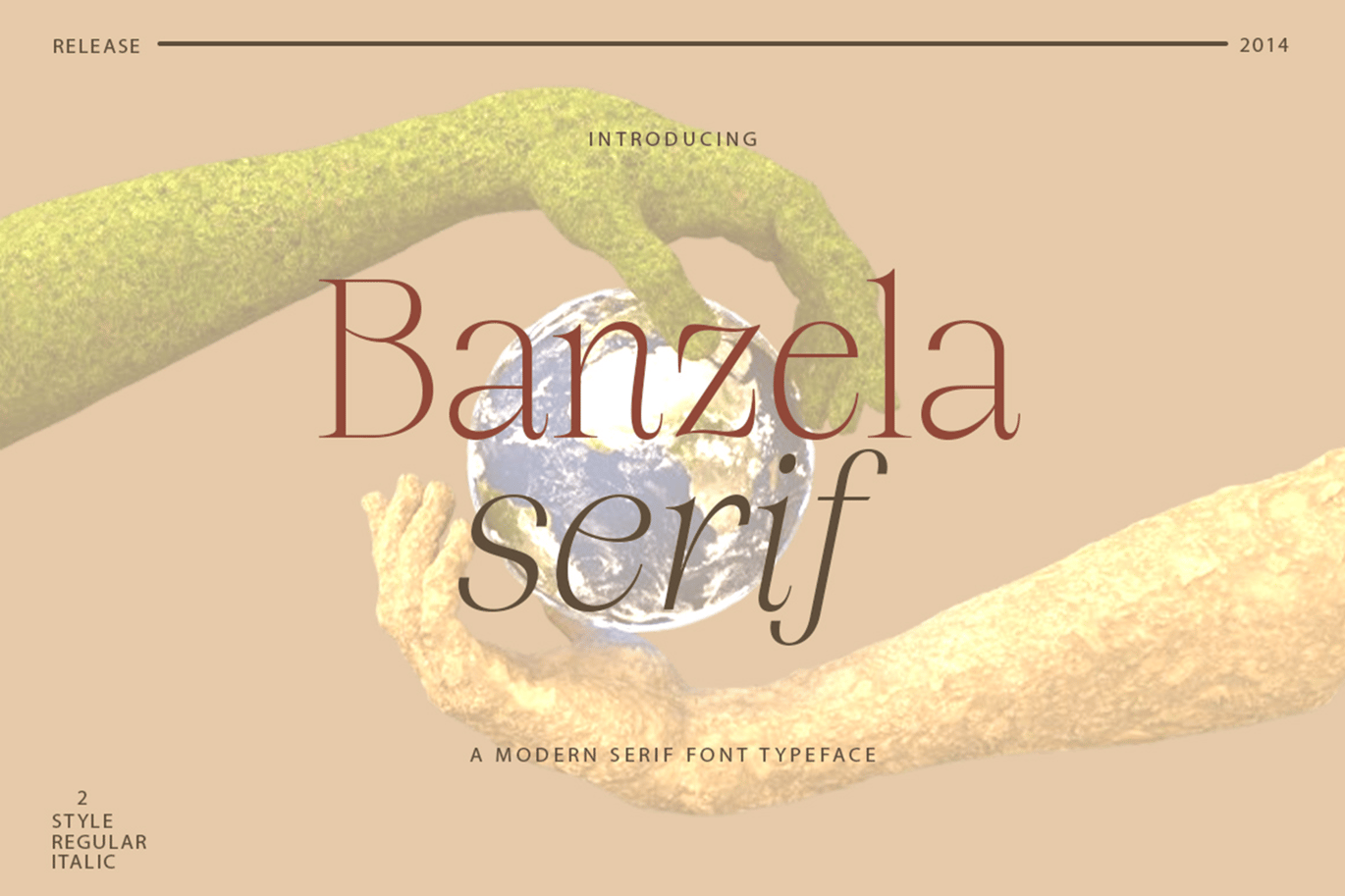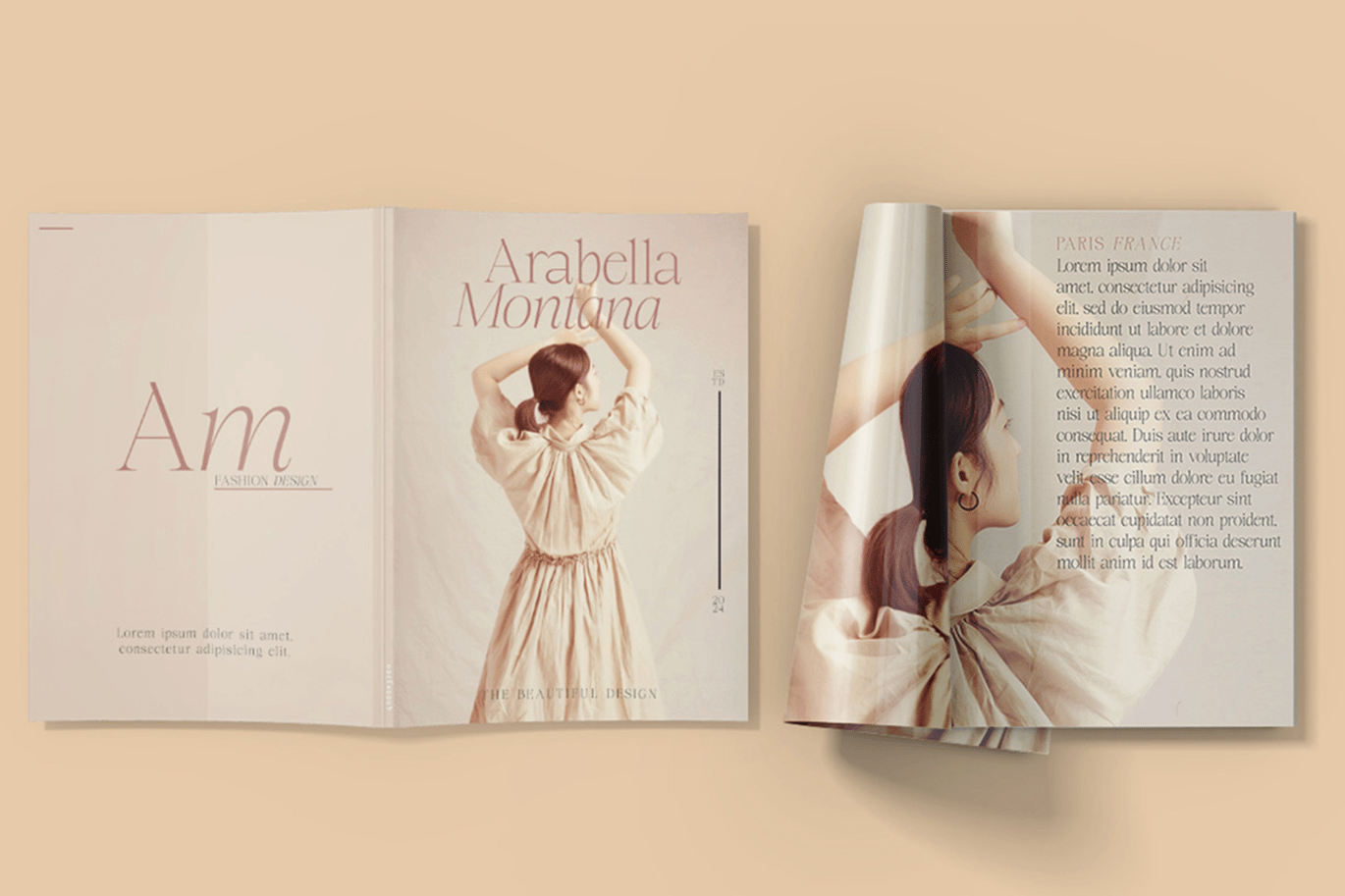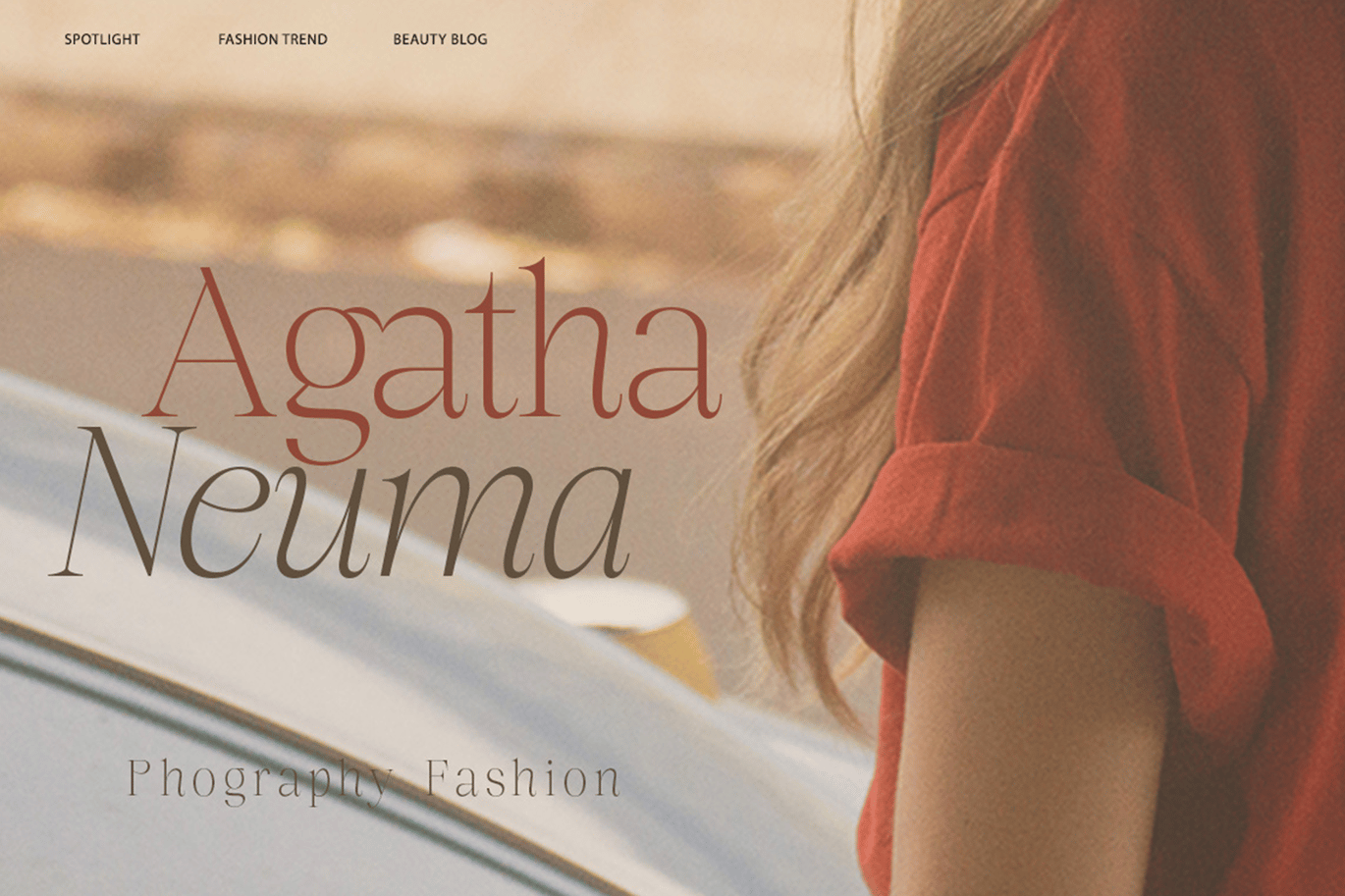
Banzela is a fine, airy serif from Propertype. Strokes are thin, serifs are small and sharp, and the italic flows almost like handwriting. The mockups put it on magazine spreads with names like Arabella Montana and Agatha Neuma, which is exactly the editorial world it was drawn for.
The free set covers the Regular and Italic. Propertype also sells a much larger family. Try mixing the two styles in one headline, the first word upright and the second in italic, as the specimen does.
Best uses for Banzela
- Fashion and beauty magazine layouts
- Photography and portfolio sites
- Boutique and salon branding
- Book covers for romance or memoir
- Event invitations
Banzela is delicate, so pair it with a clean sans. Jost works well for small text. Manrope adds a modern touch for web body copy. For captions, Karla stays readable on phones.
Banzela Font